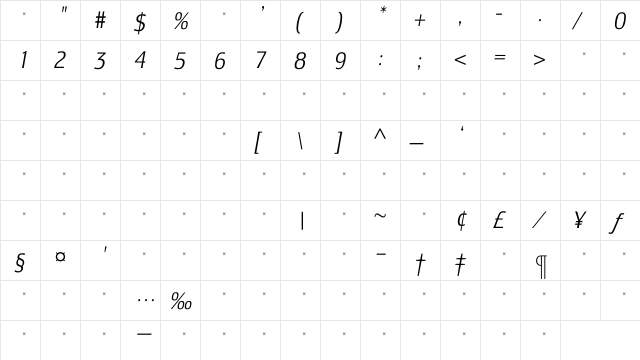
LesmoreLightCondensedItalicTab Regular Font Preview
Design Context for LesmoreLightCondensedItalicTab Typeface
LesmoreLightCondensedItalicTab is a composed and adaptable typeface that performs quietly and consistently across a wide range of design contexts. Its italic angle brings a sense of urgency and motion to the letterforms. Its slender proportions lend an understated elegance to any composition. The condensed width makes it efficient for tight spaces without sacrificing legibility.
Pro Tip: Use LesmoreLightCondensedItalicTab for emphasis, pull quotes, and subheadings where its slanted energy can add rhythm to the layout.